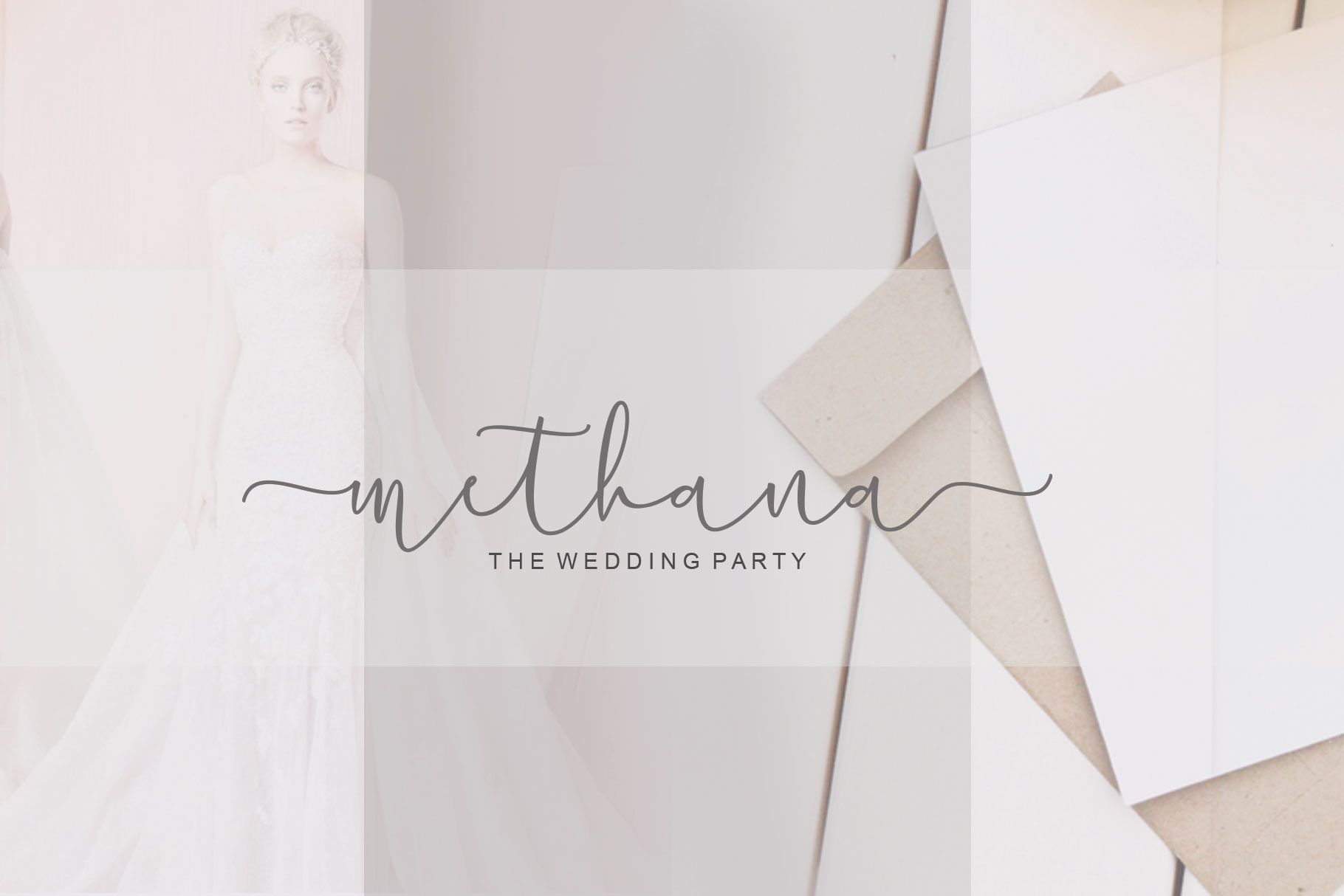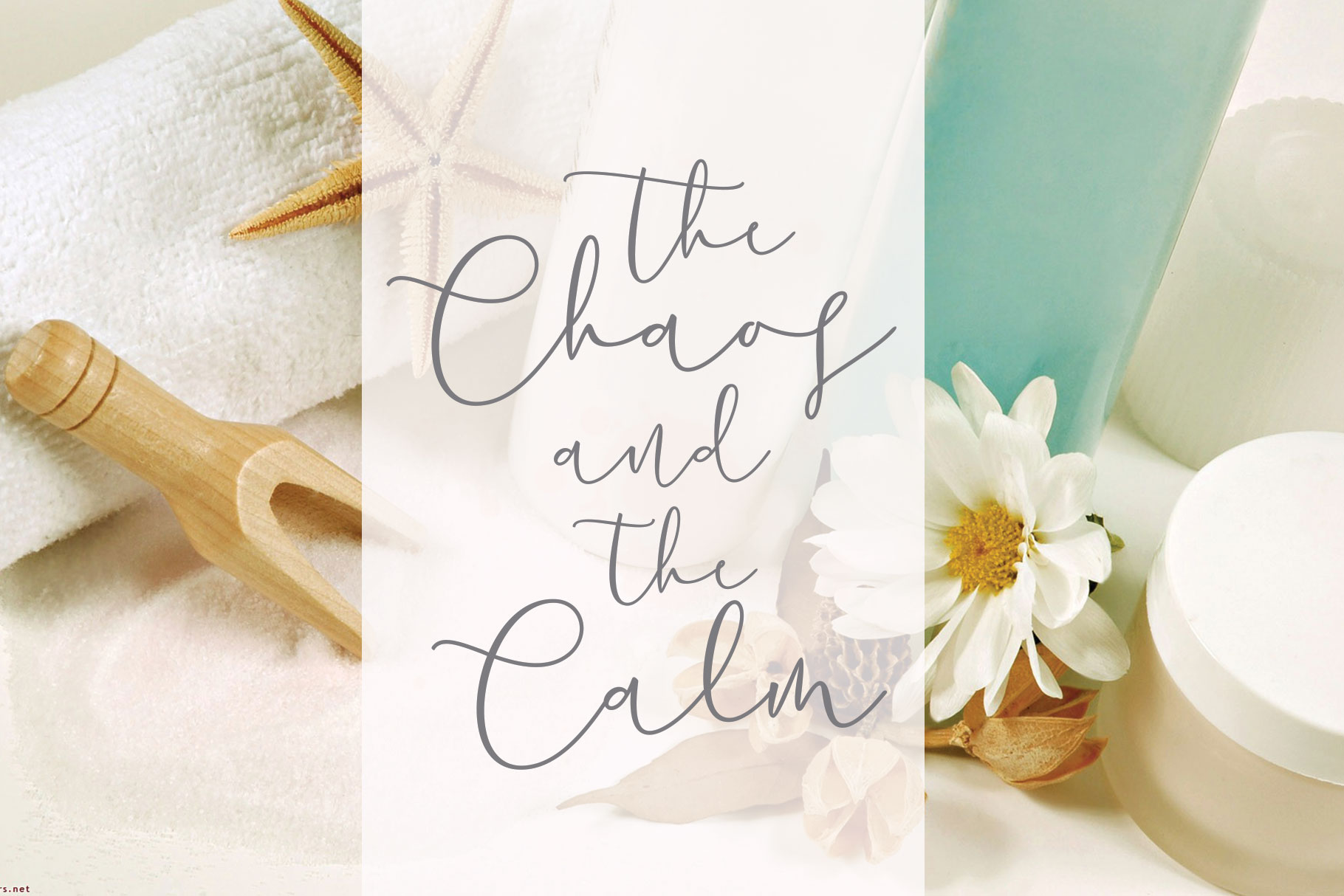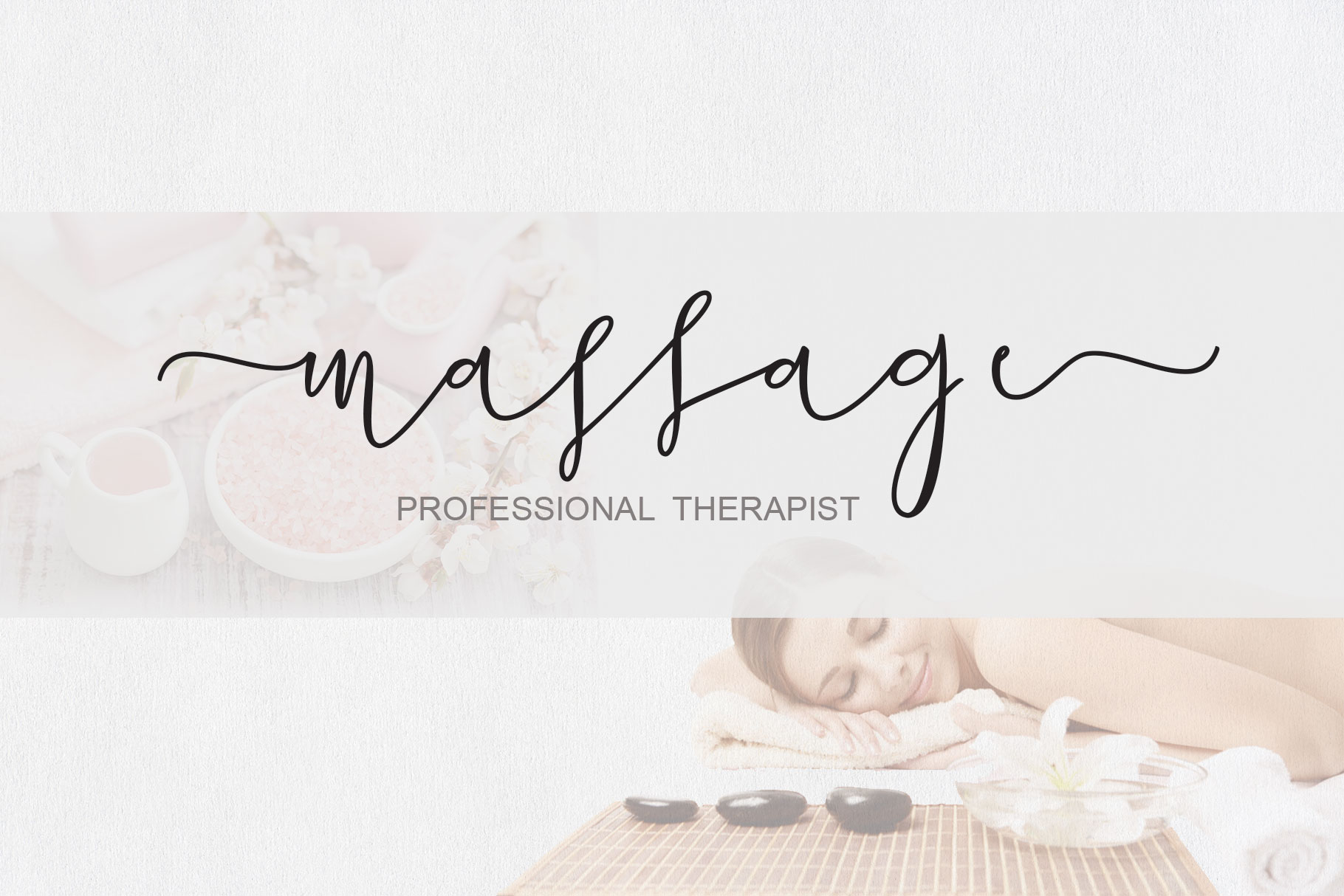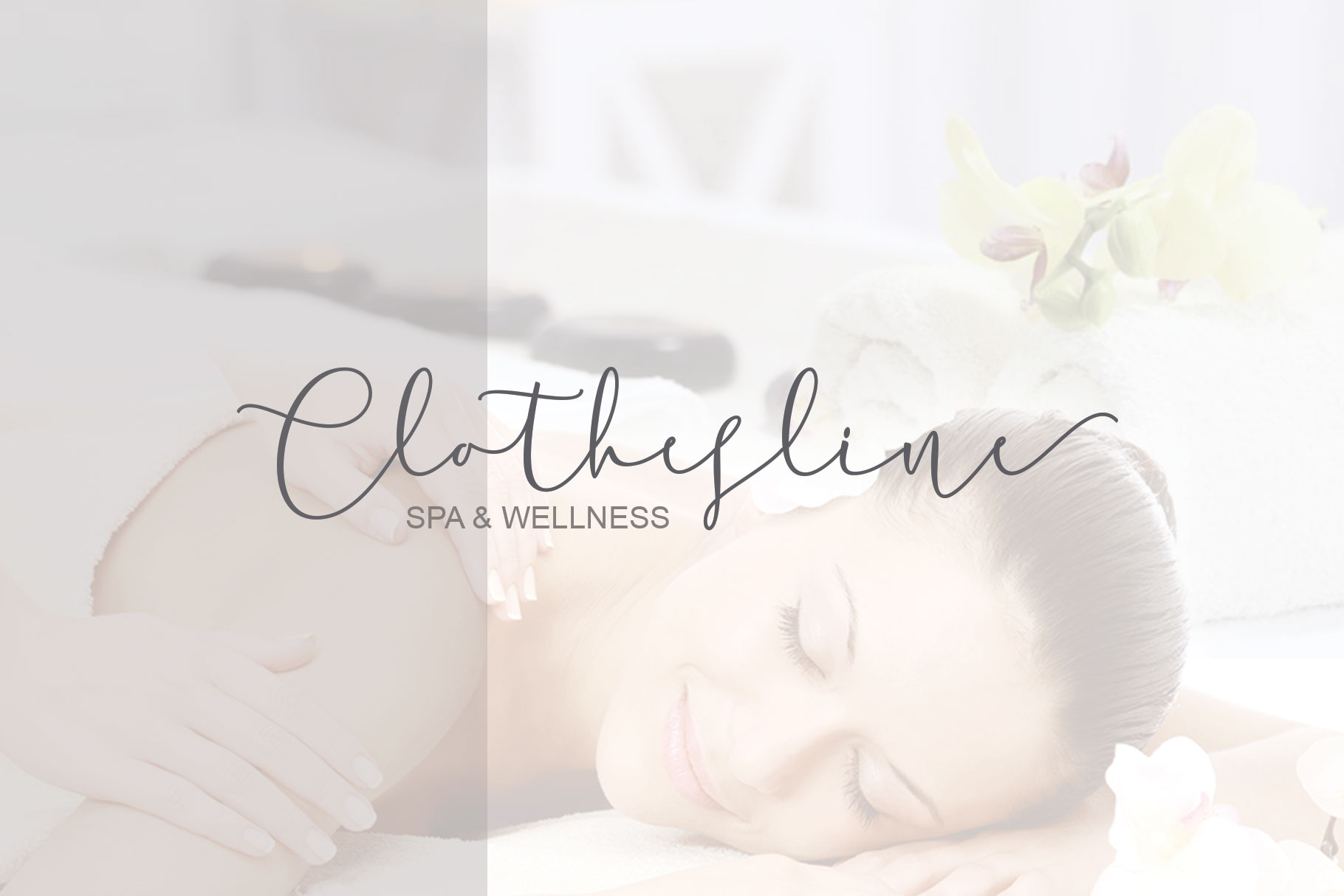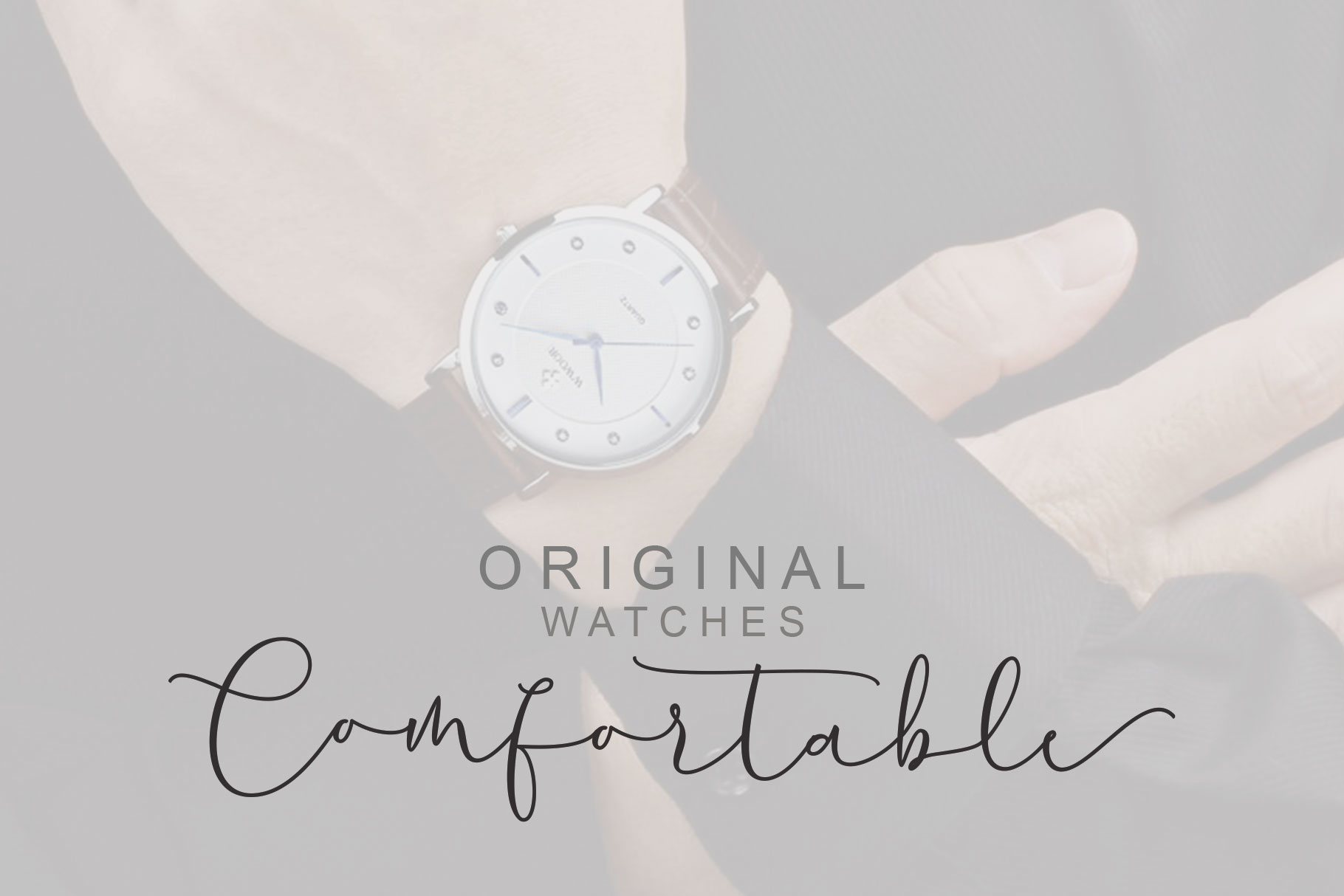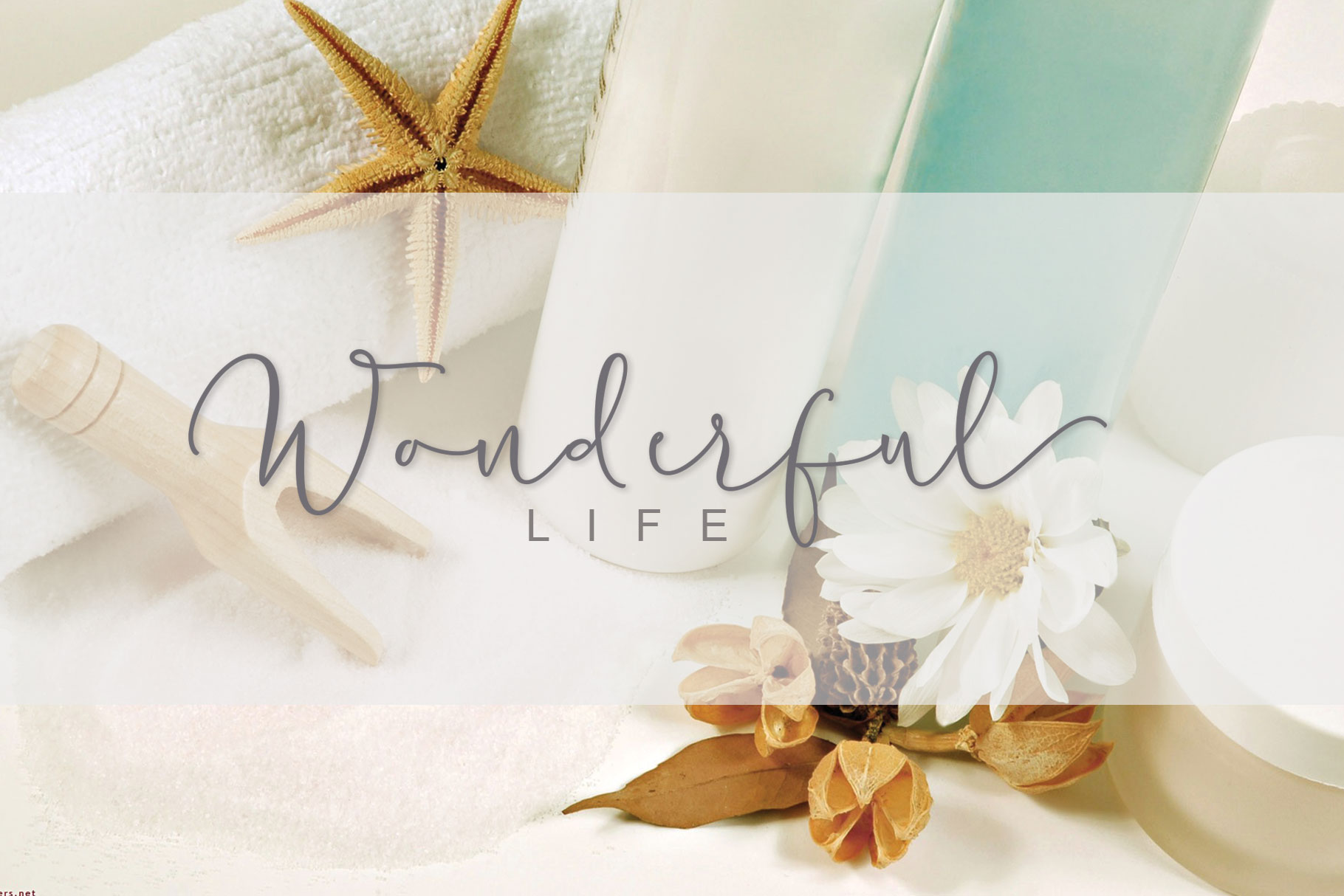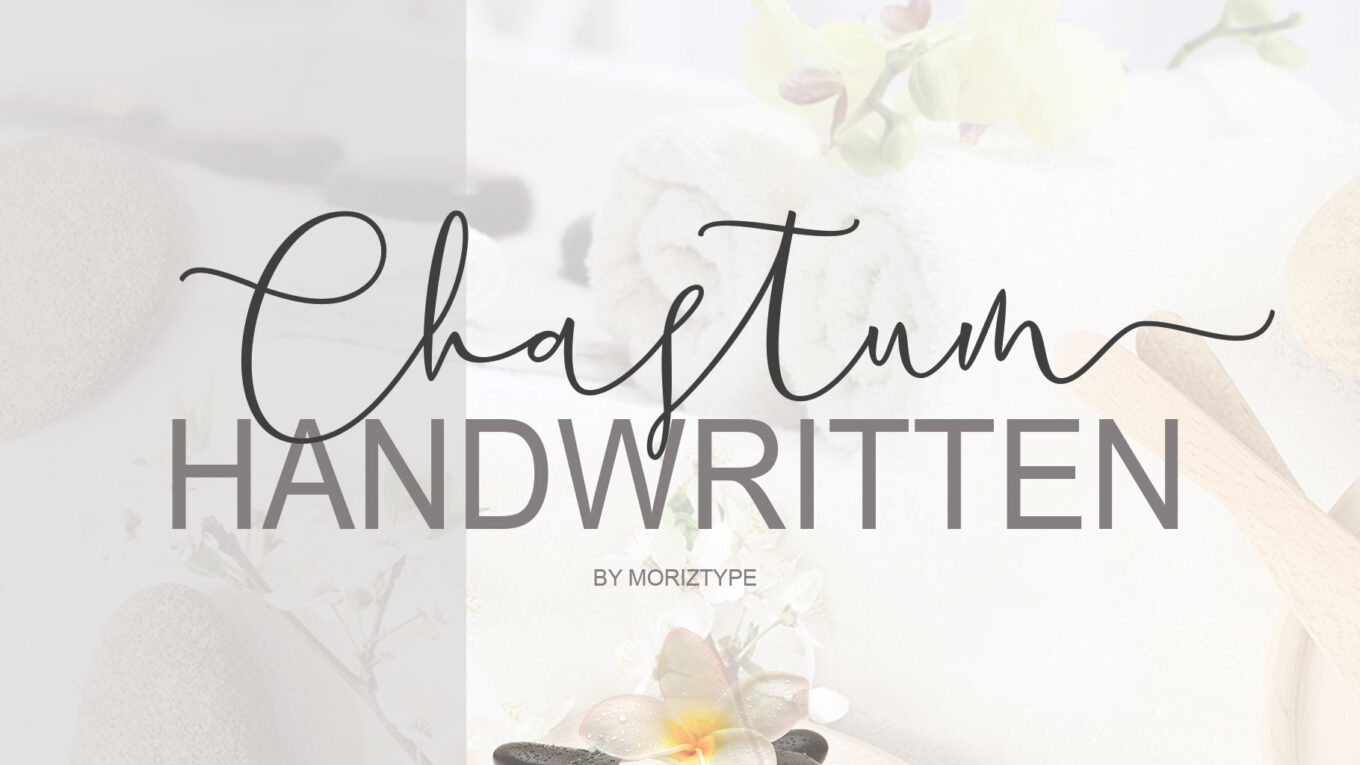
Introducing Chastum Font: The Epitome of Modern Handwriting Calligraphy
In the realm of typography, few fonts manage to capture the essence of elegance and romance as effectively as Chastum Font. This modern handwriting calligraphy font is a masterpiece of design, boasting its own distinctive features and a decidedly feminine style. Chastum is not just a font; it’s an expression of creativity, a dash of sophistication, and a pinch of warmth, all rolled into one. In this article, we’ll delve into the intricacies of Chastum Font, exploring its characteristics, uses, and why it has become a go-to choice for designers and crafters alike.
The Distinctive Features of Chastum Font
Chastum Font stands out in the crowded world of typography due to its unique blend of modernity and classic calligraphy. Its letters are designed with flowing lines and subtle curves, giving it a fluid, handwritten feel that is both contemporary and timeless. The font’s feminine style is evident in its delicate strokes and the gentle way it dances across the page. Whether you’re working on a wedding invitation, a branding project, or a personal craft, Chastum adds a touch of elegance and warmth that is hard to replicate with other fonts.
The Versatility of Chastum Font
One of the key advantages of Chastum Font is its versatility. This font is not limited to a specific genre or medium; it can be used in a wide range of creative projects. From digital platforms like websites and social media graphics to print materials such as brochures, posters, and greeting cards, Chastum can adapt to any design need. Its readability and aesthetic appeal make it an excellent choice for headings, titles, and short paragraphs, adding a personal touch that engages the reader.
Adding Romance and Kindness to Your Projects
Chastum Font has a unique ability to infuse projects with a sense of romance and kindness. Its stylistic and feminine approach makes it particularly well-suited for projects that require a personal and heartfelt touch. Wedding planners, for instance, can use Chastum to create beautiful, bespoke wedding invitations and decor. Similarly, artists and crafters can incorporate Chastum into their work, such as handmade cards, journal entries, or textile designs, to add a layer of emotional depth and connection.
Why Designers and Crafters Love Chastum Font
Designers and crafters often seek fonts that not only convey their message effectively but also resonate with their audience on an emotional level. Chastum Font ticks all these boxes and more. Here are a few reasons why it has become a favorite among creative professionals and hobbyists:
- Ease of Use: Chastum is incredibly easy to use, even for those who are new to design. Its clear and flowing script makes it simple to read and work with.
- Customization: The font’s unique features allow for a high degree of customization. Designers can play with sizes, colors, and spacing to create a look that is distinctly their own.
- Emotional Connection: Perhaps most importantly, Chastum has the power to create an emotional connection with the viewer. Its warmth and elegance can make any project feel more personal and inviting.
How to Make the Most of Chastum Font
To truly make the most of Chastum Font, consider the following tips:
- Pair it Wisely: Combine Chastum with complementary fonts to create visual interest. A serif font for body text and Chastum for headings can make for a compelling combination.
- Experiment with Colors: Don’t be afraid to experiment with different colors. Chastum looks stunning in pastels, rich jewel tones, and classic black and white.
- Play with Textures: Adding a subtle texture or background can enhance Chastum’s romantic feel, especially in digital designs.
| Font Name | Chastum Font |
| Author | moriztype |
Chastum Font is more than just a typographical choice; it’s a design statement. Its modern handwriting calligraphy, distinctive features, and feminine style make it an invaluable tool for designers and crafters looking to add a touch of romance and kindness to their projects. Whether you’re creating wedding invitations, branding materials, or personal crafts, Chastum offers a unique blend of elegance, warmth, and versatility. As you explore the world of typography and design, let Chastum Font be your guide to creating projects that are not only visually stunning but also emotionally resonant.